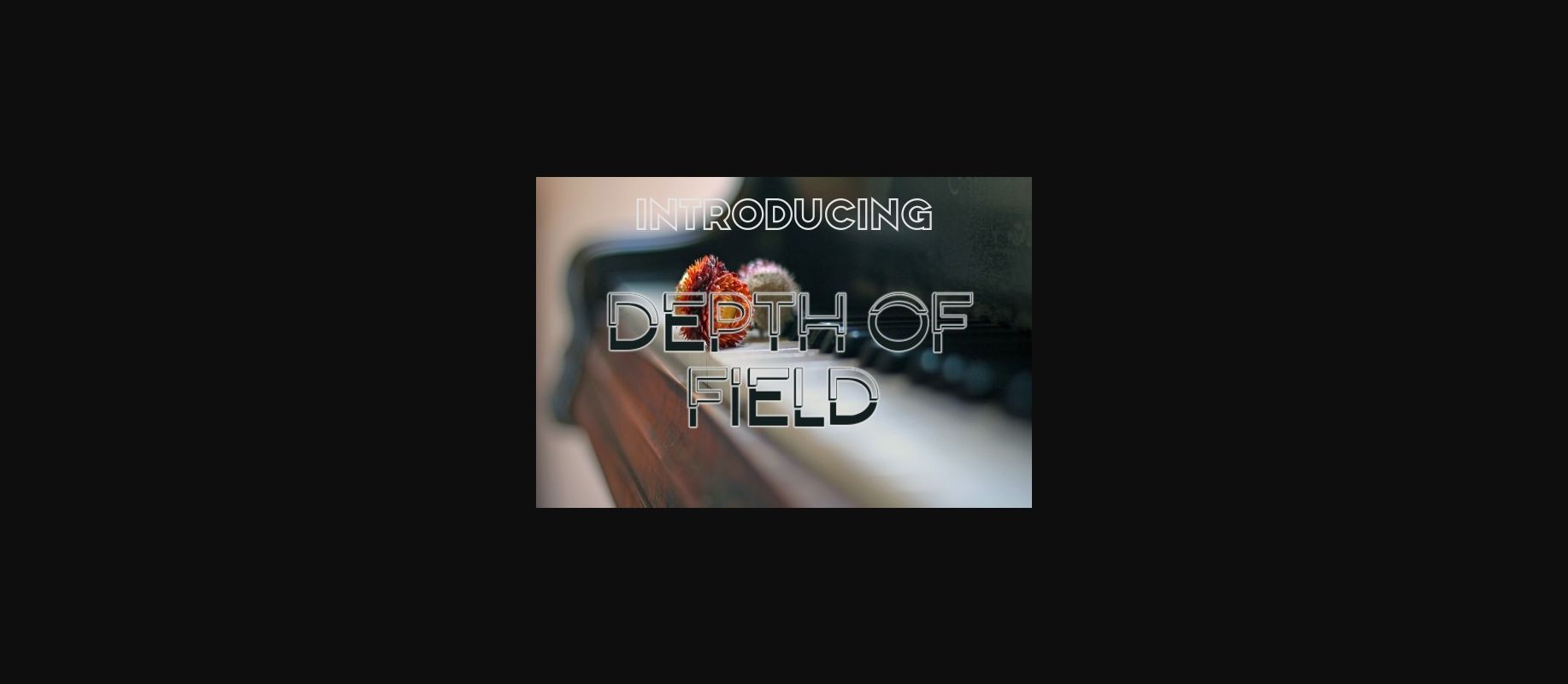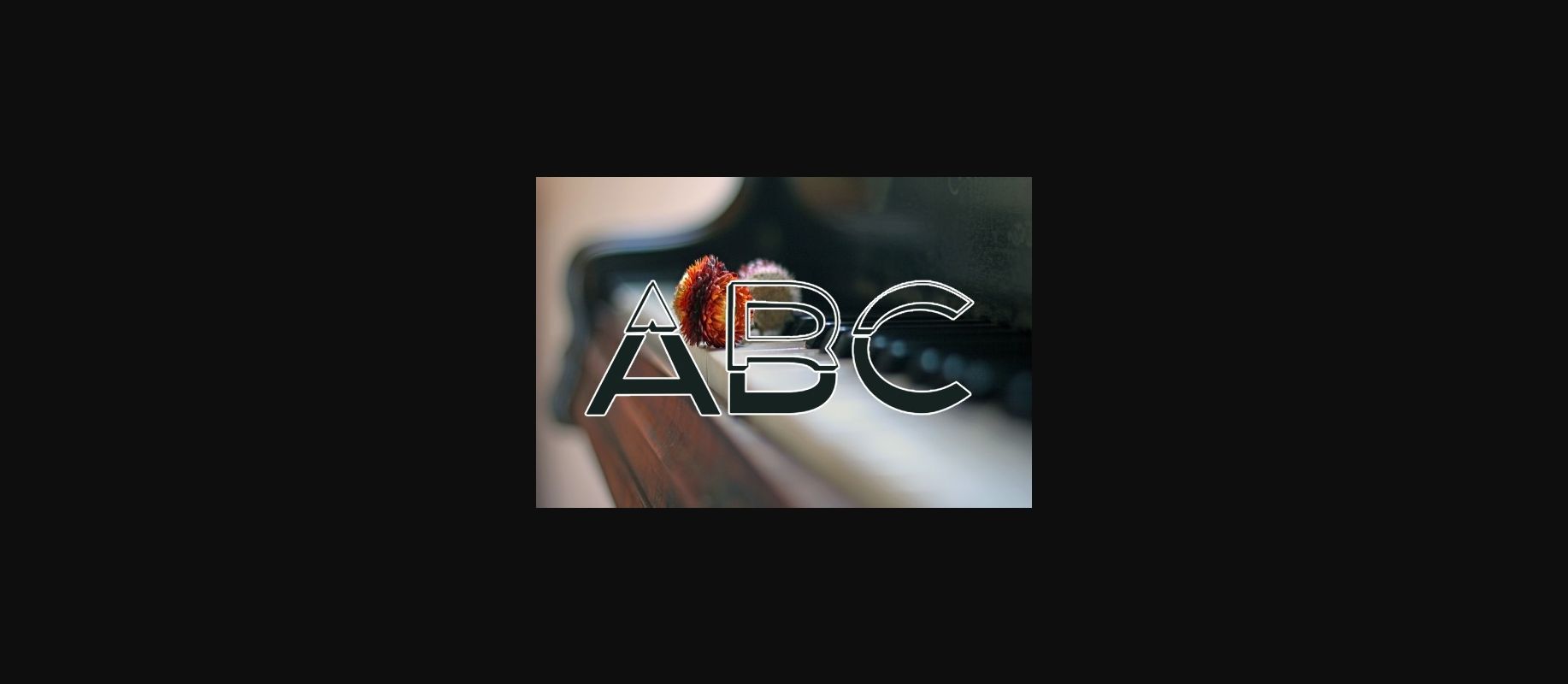
HomeDecorative FontsDepth of Field Font Decorative Fonts Depth of Field Font FacebookXPinterestWhatsApp 1 of 4 ... Depth of Field Font Poster 2... Depth of Field Font Poster 3... Depth of Field Font Poster 4... About Depth of Field Font Depth of Field is a creative and fun decorative font capable of taking any crafty idea to the highest levels! Use it for modern magazine covers, books, movies, games, modern wall art, and many more crafts! DOWNLOAD NOW People also explored Coffee Break Font Space Colony Notebook Font Spider Web Font Mistake Bubblegum Font Healing Font Rusty Lemon Font Calefornia Script Font 293 0 TagsDepth of Field Font Previous articleMonsterZ FontNext articleSuzanstein Font LEAVE A REPLY Cancel reply Comment: Please enter your comment! Name:* Please enter your name here Email:* You have entered an incorrect email address! Please enter your email address here Website: Save my name, email, and website in this browser for the next time I comment. Personal Use Free Midnight Show Personal Use Free Read more about this font Numberpile Personal Use Free Read more about this font Harmony Personal Use Free Read more about this font Bellarin Personal Use Free Read more about this font BLOG Free vs Paid Fonts: Why Investing in Premium Fonts Is Worth It Free vs Paid Fonts: Why Premium Fonts Are Worth It in 2025 The debate of free vs paid fonts continues in the design world. While... To increase your work productivity, choose the most readable fonts. Transform Your Website: Elevate Your Typography with 7 Best Web Font Generators Modern Sans-Serif Fonts That Brands Love in 2025